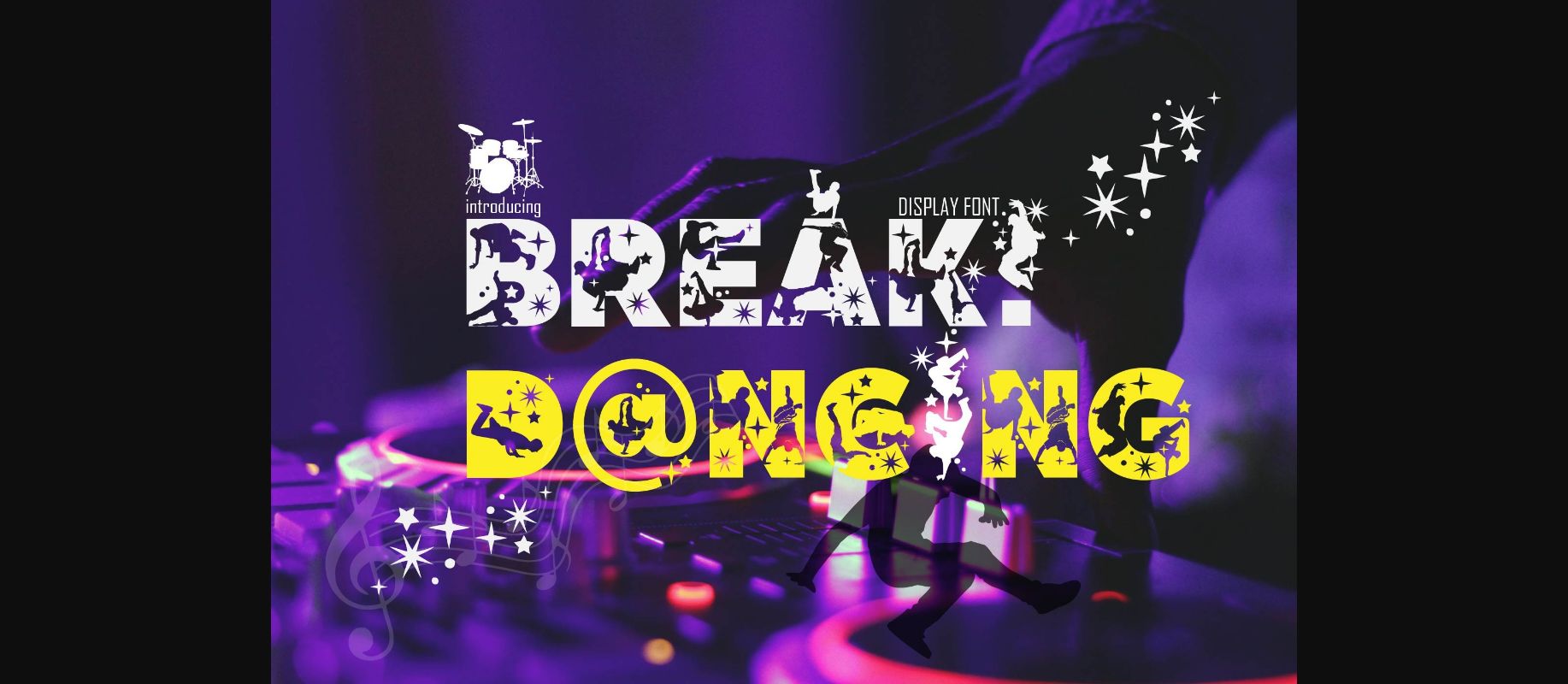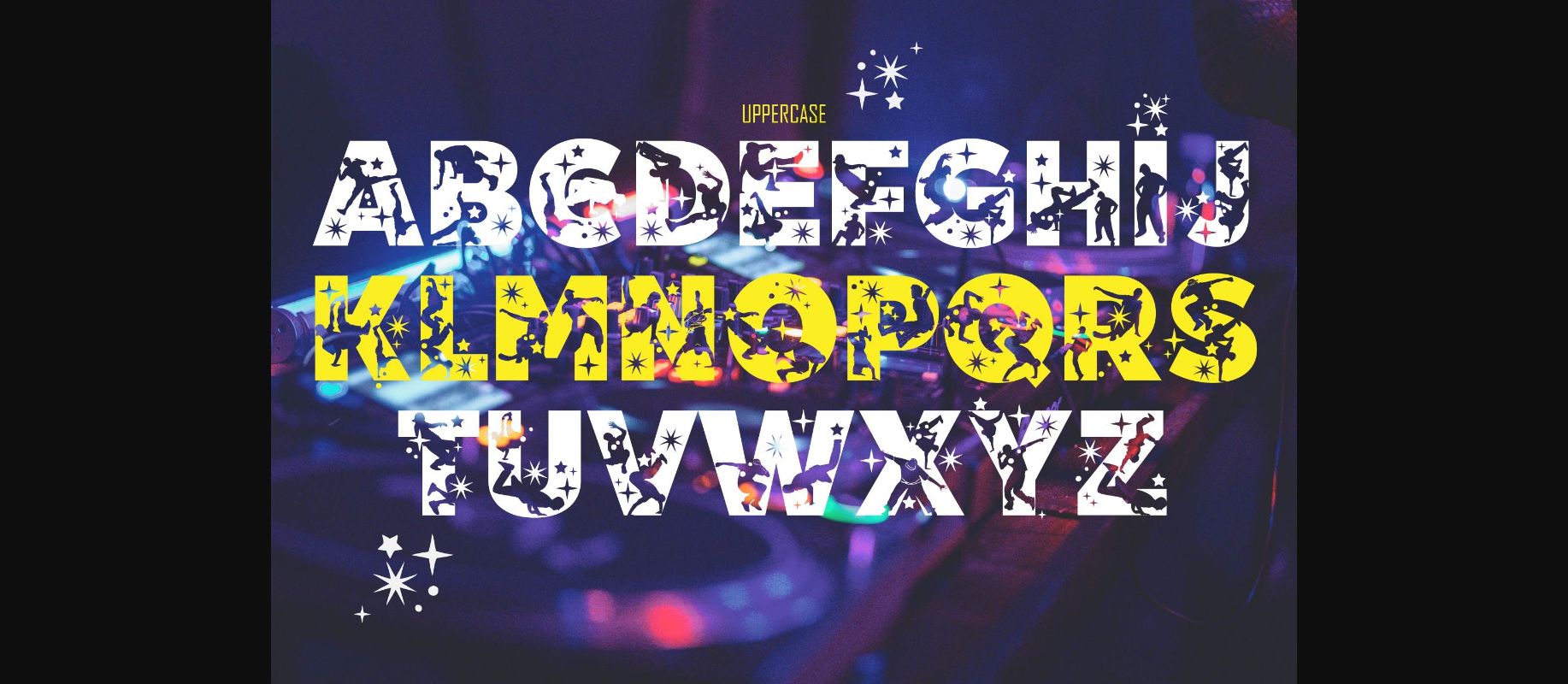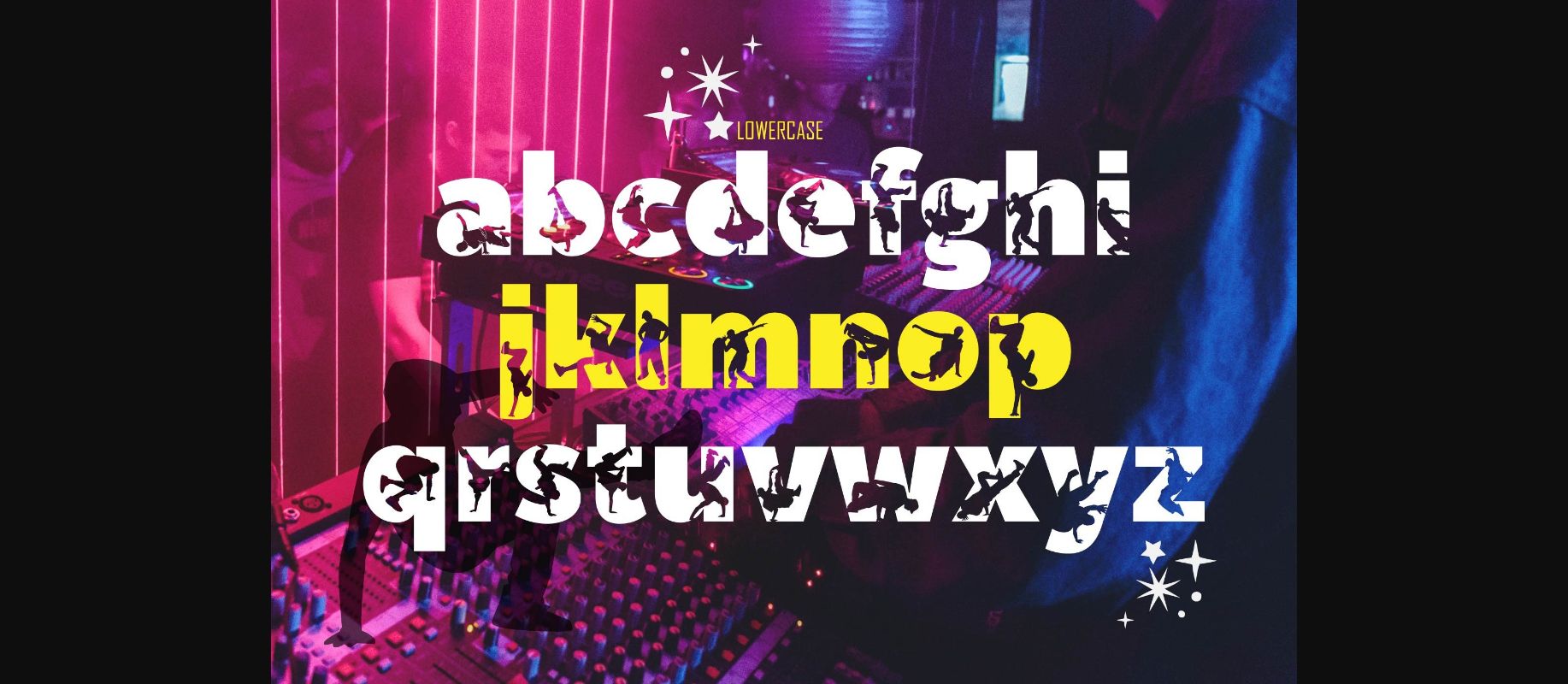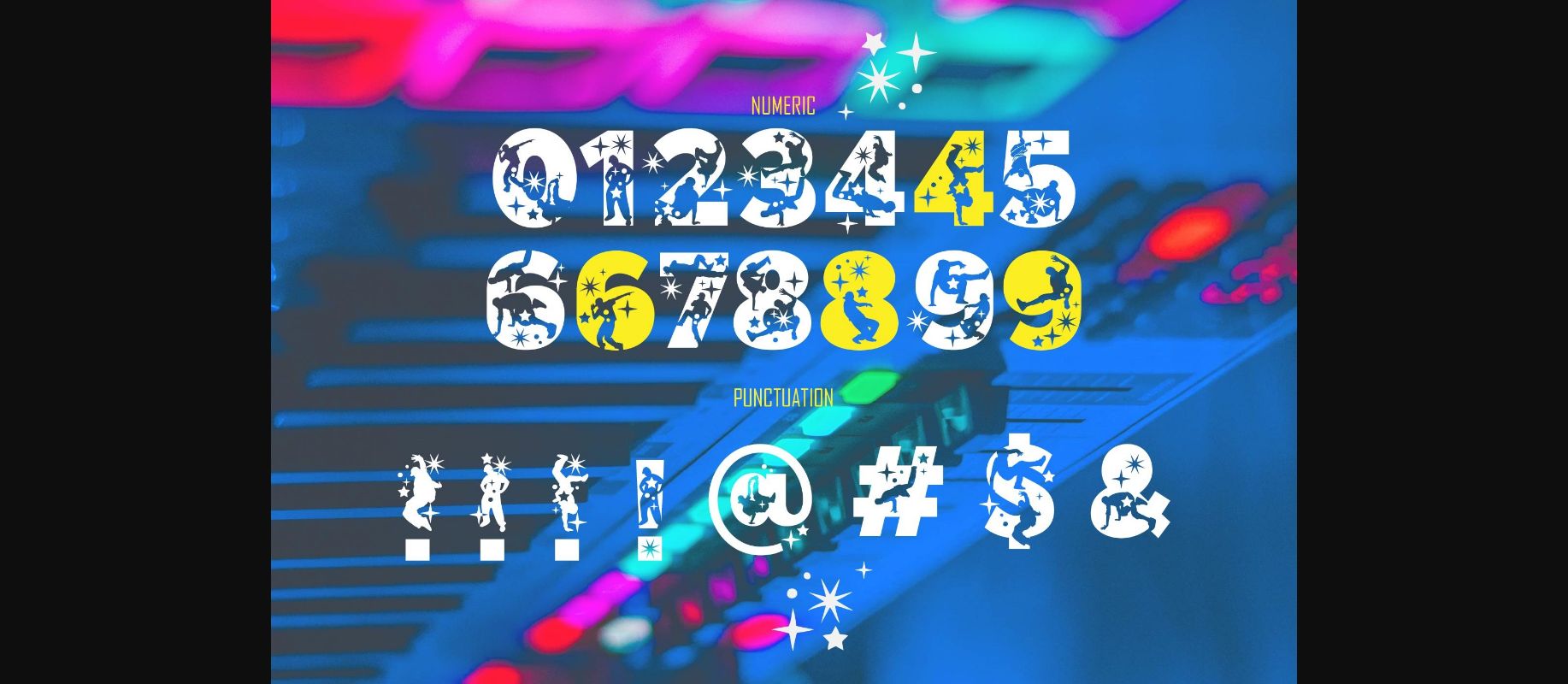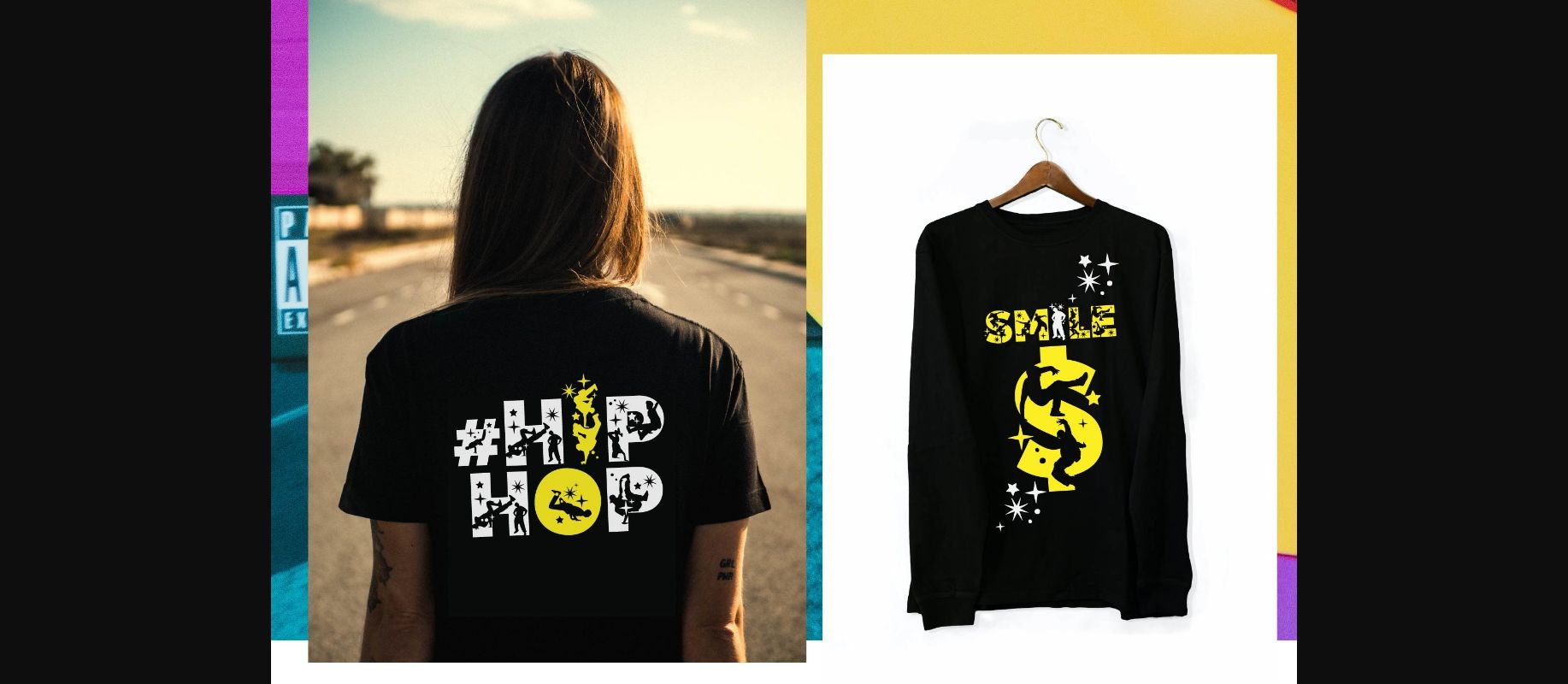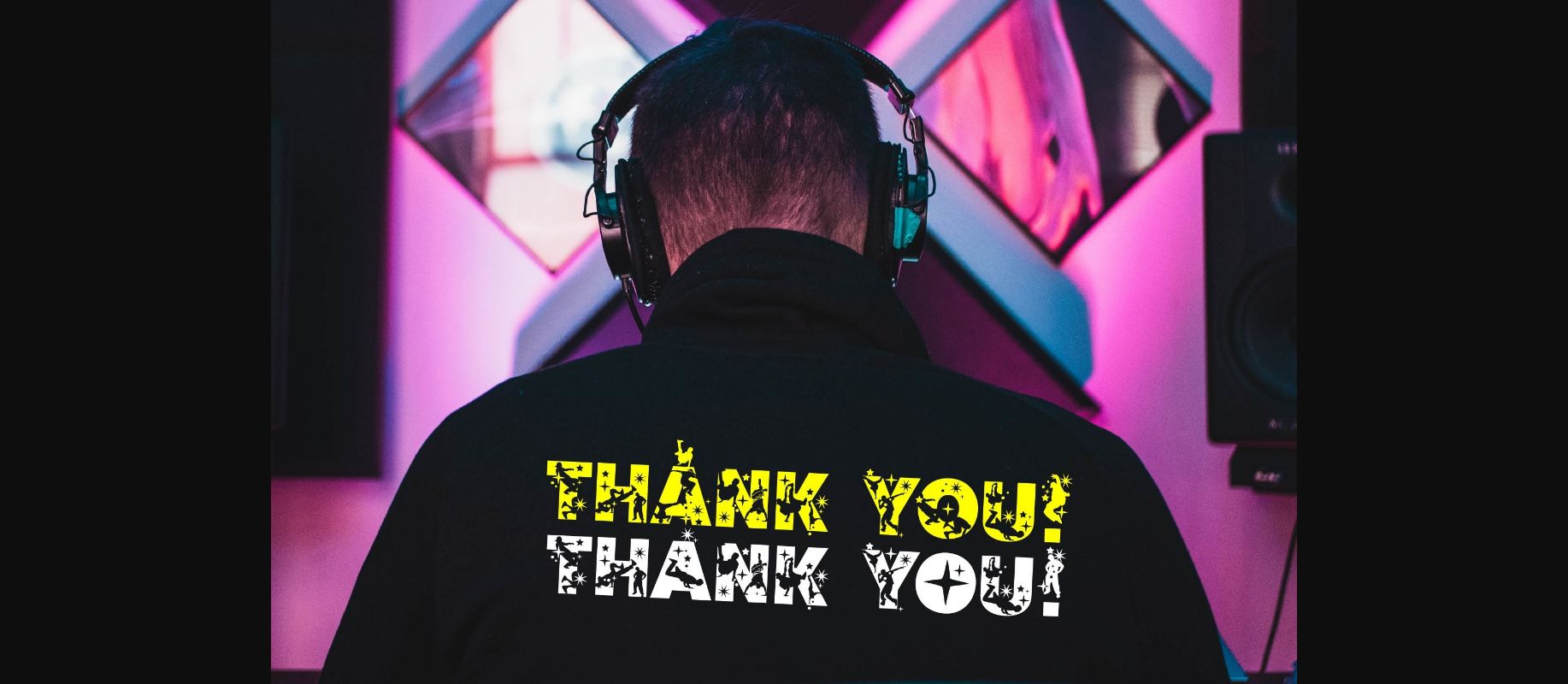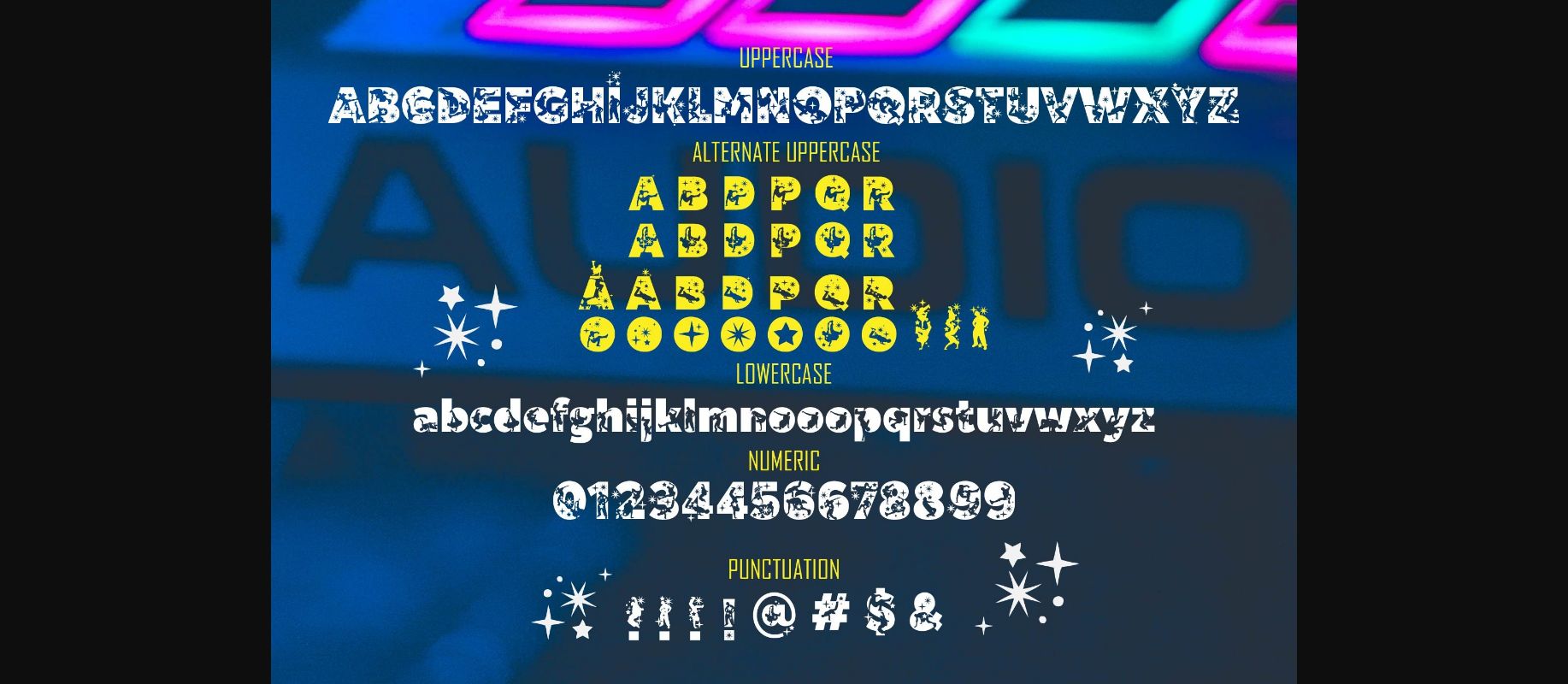
Break Dancing Font
About Break Dancing Font
Break Dancing is a bold, cool, and assertive decorative font that will bring fun to any design you wish to create! Add it to your favorite creative projects, and make them outstanding!